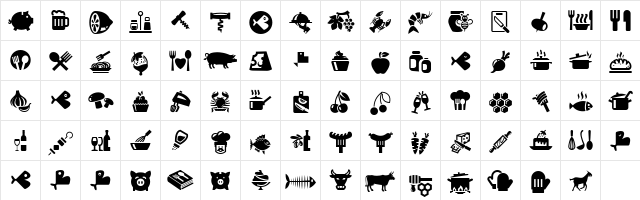
Bocartes fritos Regular
| Foundry | deFharo |
| Designer | Fernando Haro |
Design Context for Bocartes fritos Typeface
Bocartes fritos is a composed and adaptable typeface that performs quietly and consistently across a wide range of design contexts.